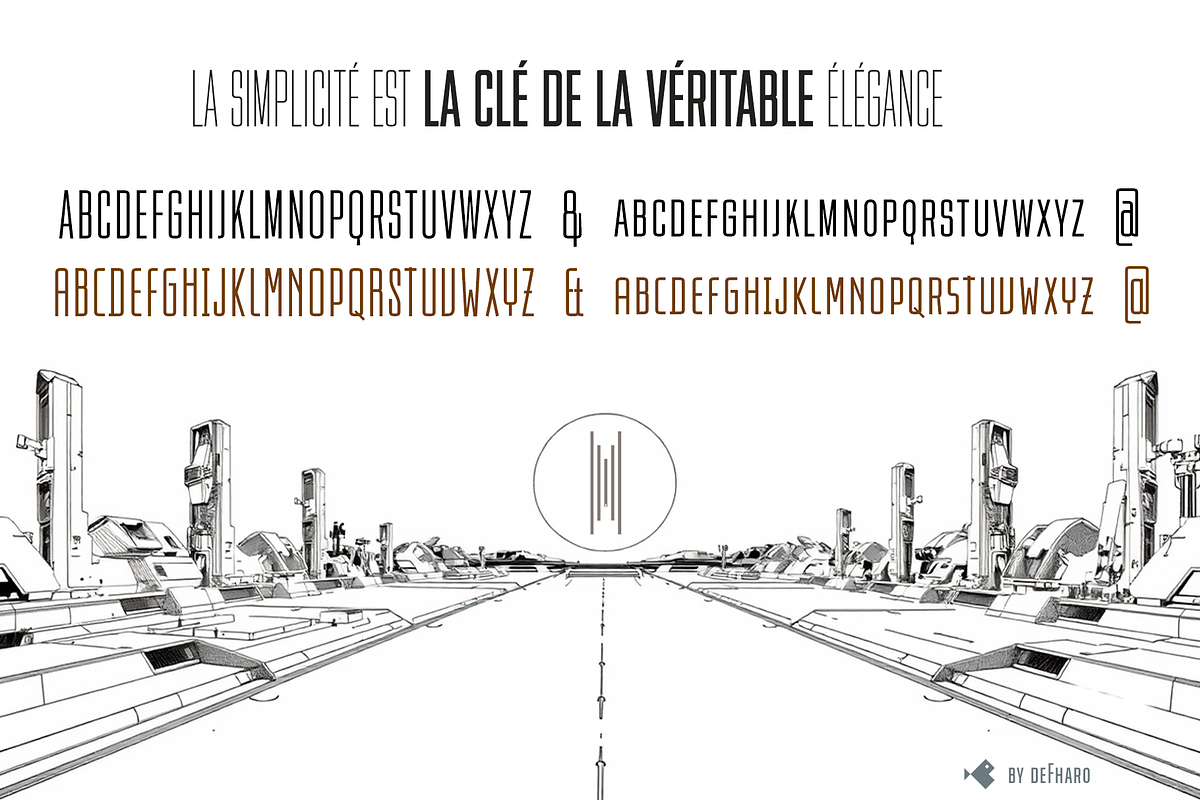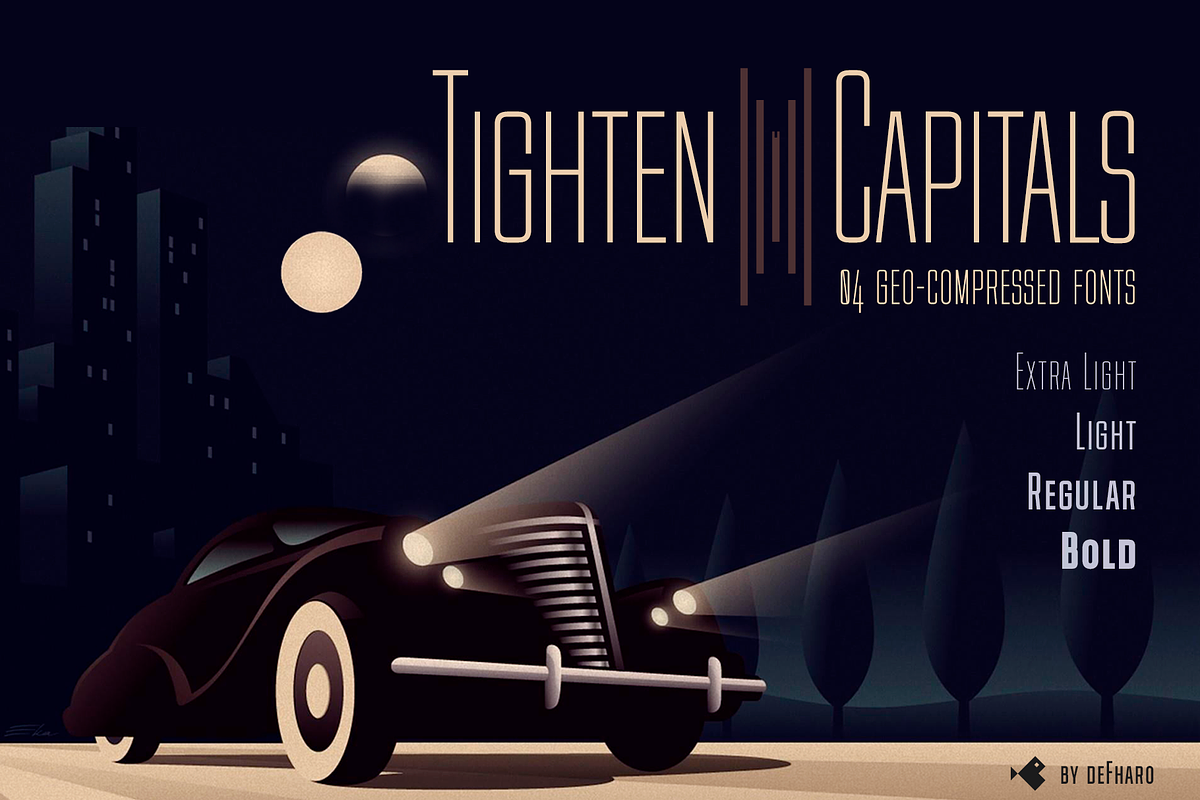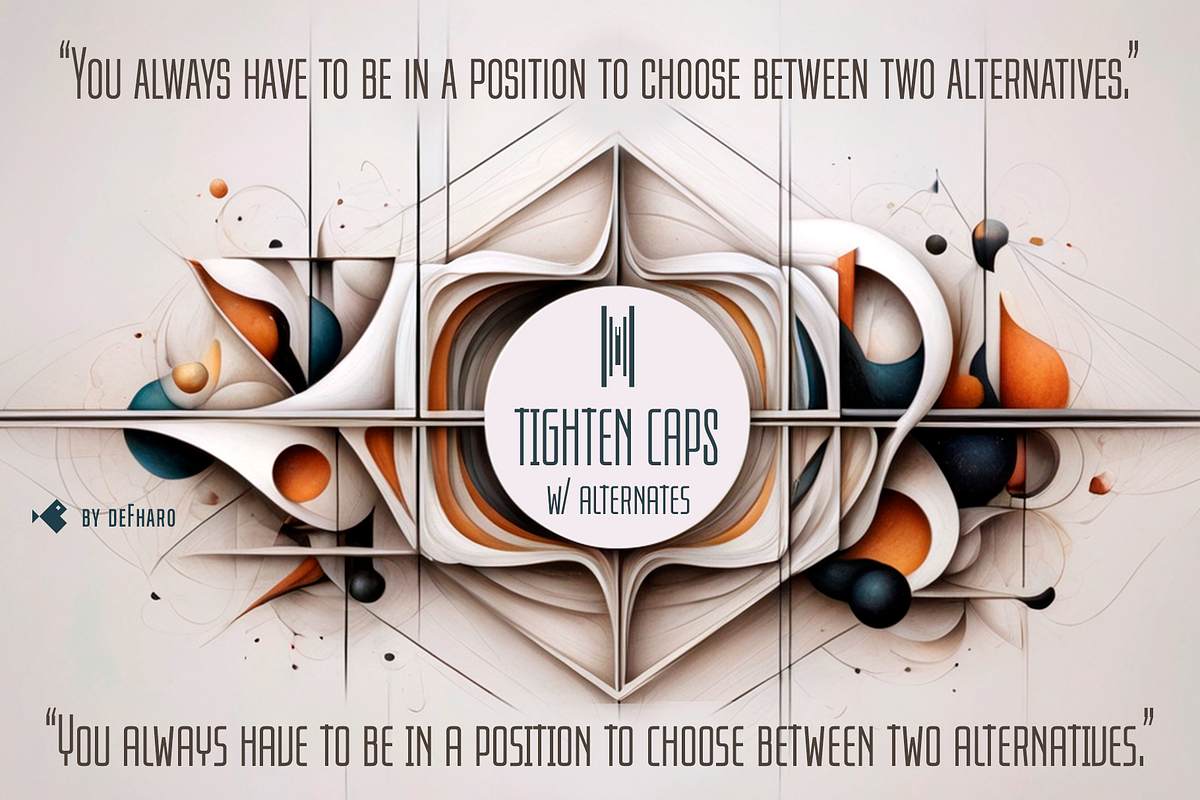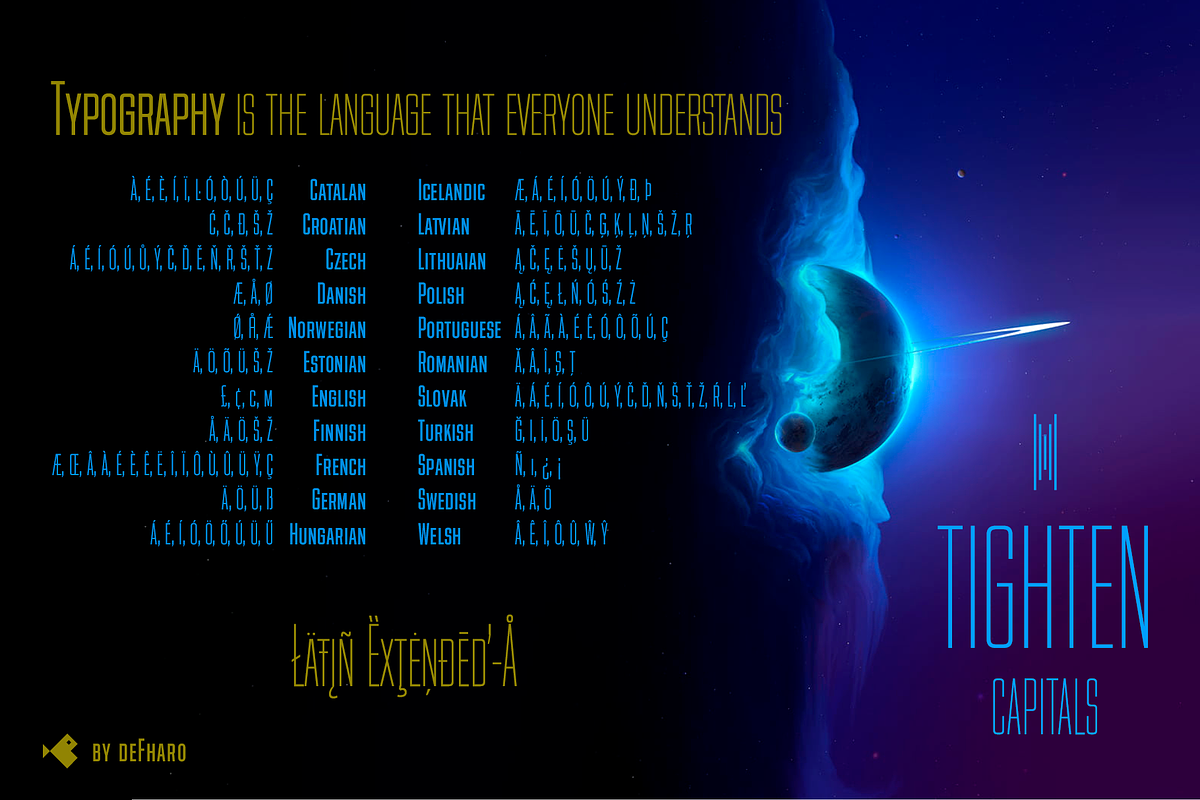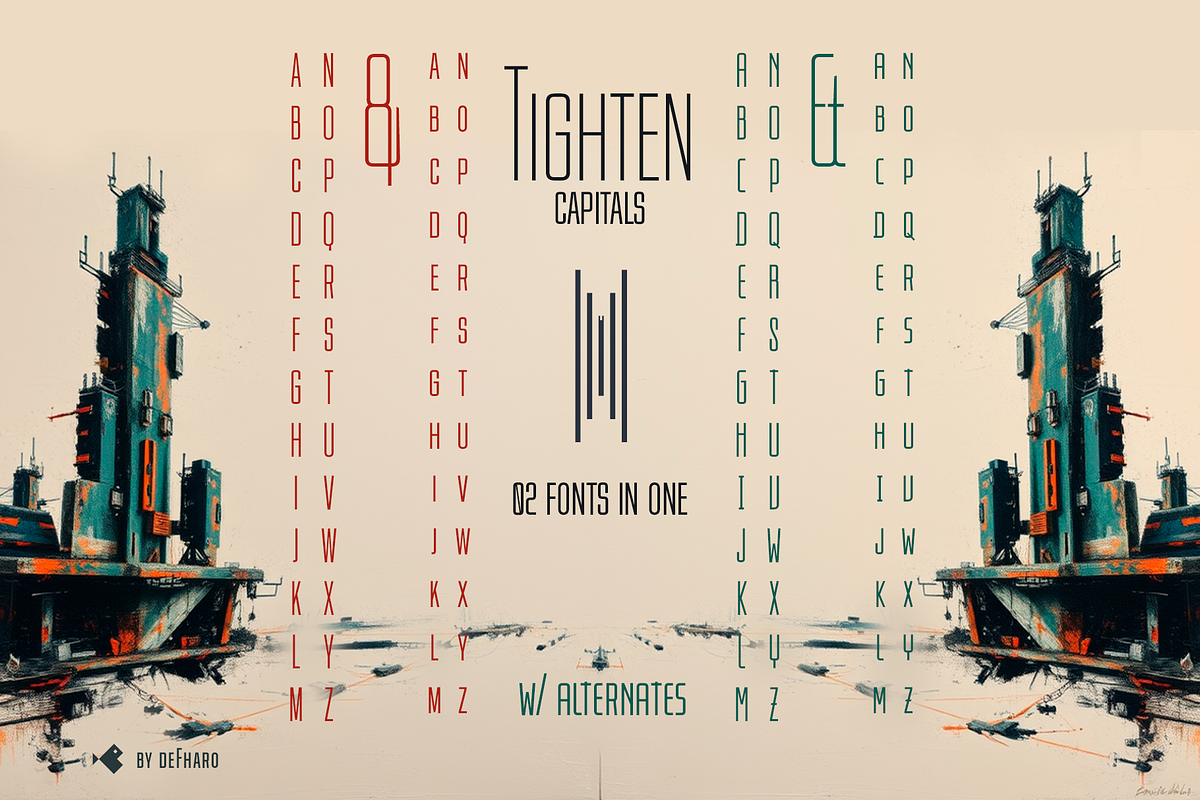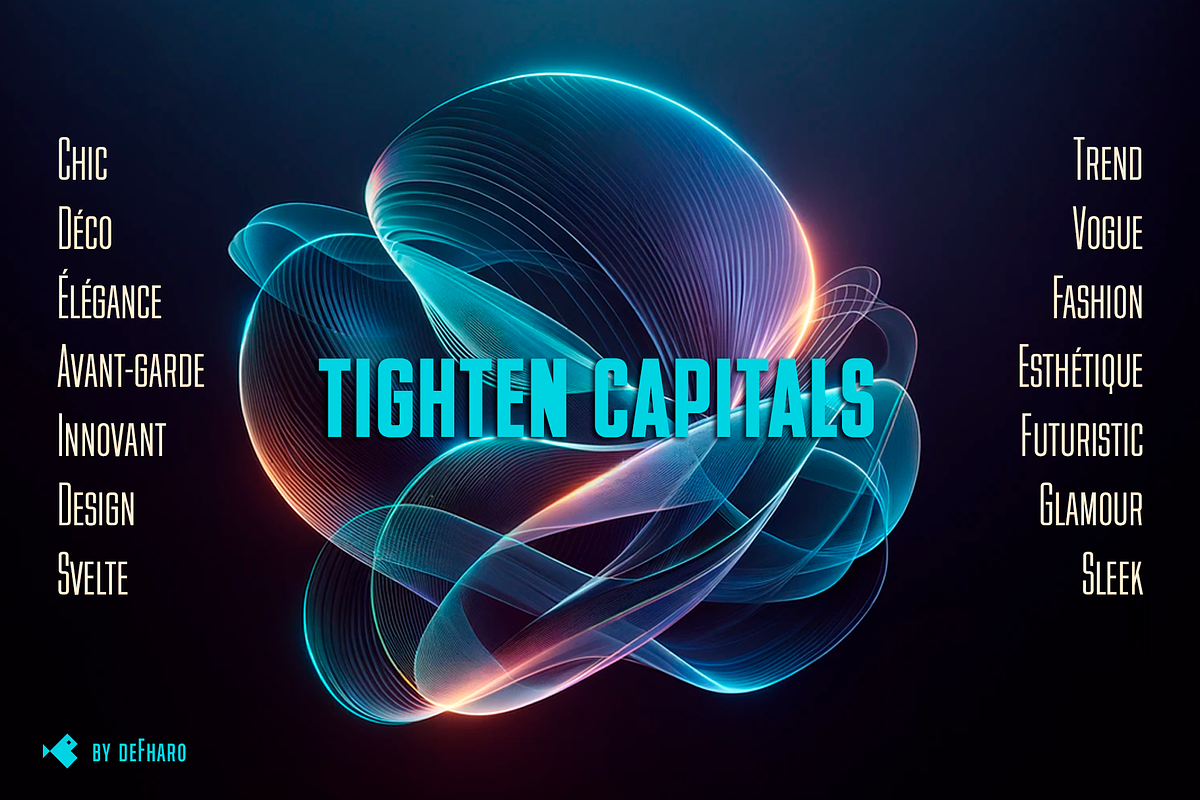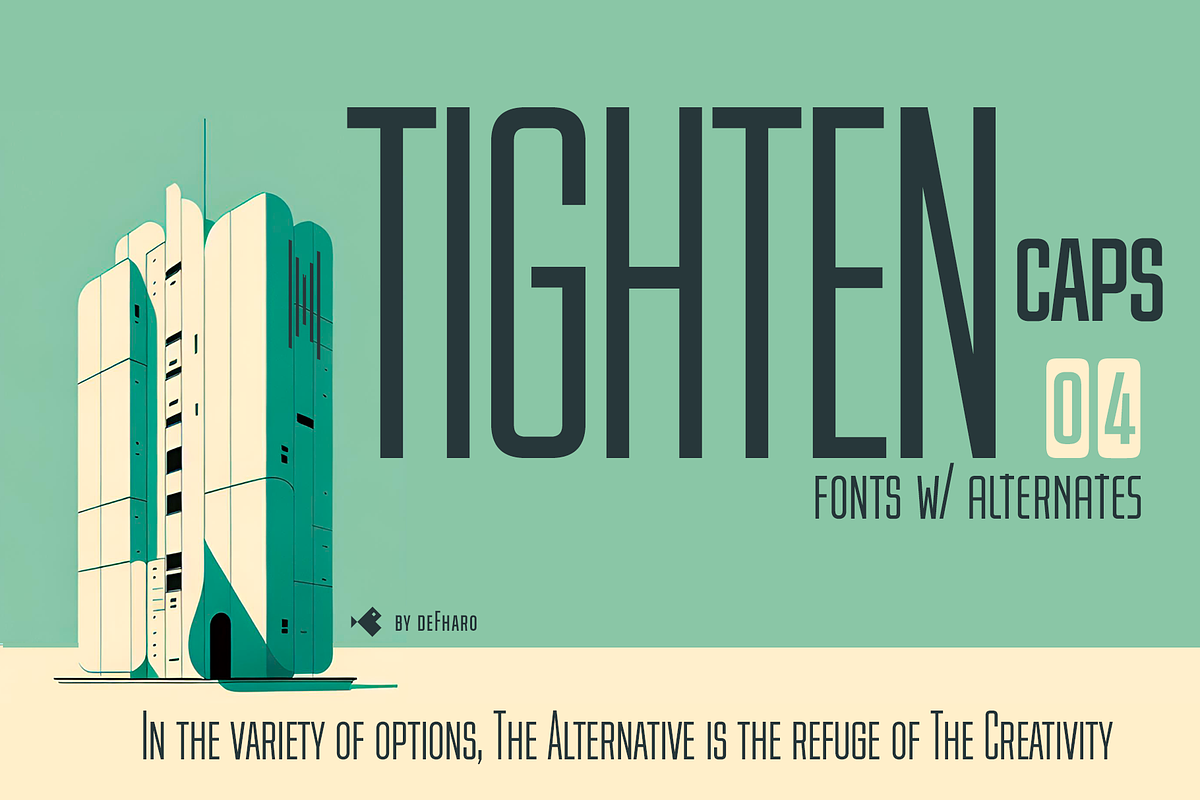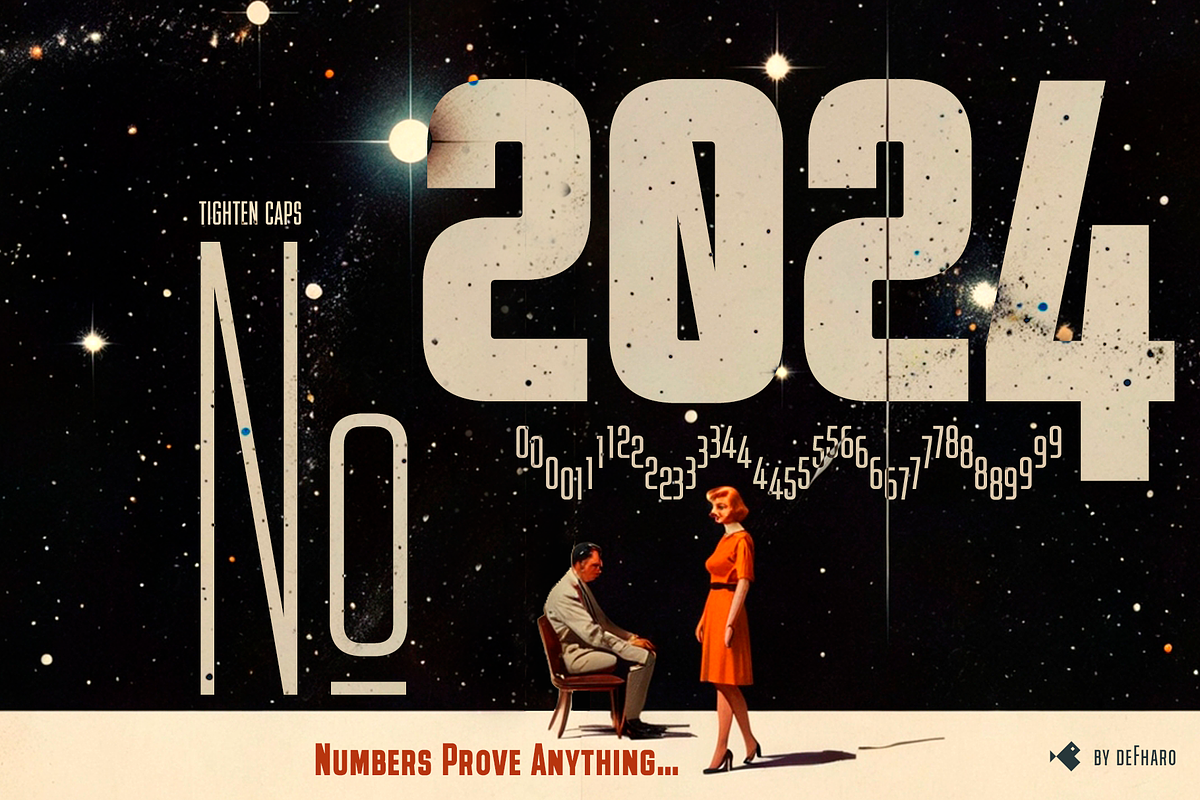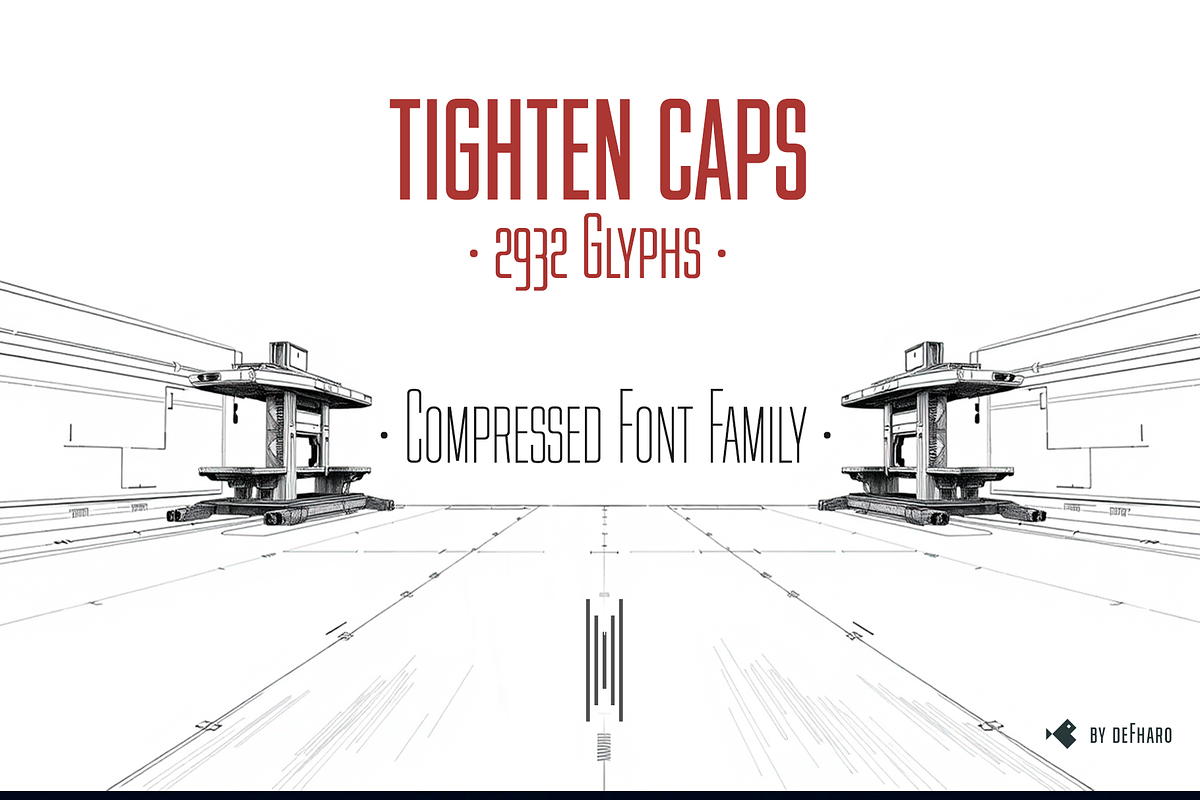
Tighten Capitals -04 Fonts-
Tighten Caps is a compressed-style sans serif typeface family with multiple options (Advanced Open Type Features), making it an essential tool for any designer seeking the balance between elegance, functionality and efficiency; Tighten Capitals not only saves space, but elevates the aesthetic quality of any project where graphic differentiation is essential.
Tighten Caps is available in four weights: Light, Regular, Medium and Bold, each designed to suit a wide range of creative projects, is exceptionally versatile and is recommended for a variety of applications, from editorial typesetting, brochure design, product packaging, to logo creation or signage.
Tighten Capitals offers a new dimension of possibilities with the inclusion of three sets of uppercase letters: Caps, Small Caps and Petite Caps, plus two complete alternative sets, as well as several sets of numbers (numerators, denominators, scientific numbers, ordinals, etc.) accessible from the Open Type functions.
🔻Tighten Caps 04 fonts
Extra Light, Light, Regular & Bold
743 glyphs. Latin Extended-A. 109 alternates.
Tighten Caps fonts includes the symbol of Bitcoin and currency symbols.
OpenType Features: Additional languages, Petite Caps, All Alternates, Alternate Annotation Forms, Bitcoin, Capital Spacing, Contextual Alternates, Denominators, Discretionary Ligatures, Fractions, Historical Forms, Inferiors, Kerning, Localized Forms, Numbers Small Caps, Numerators, Oldstyle Figures, Ordinals, Scientific Inferiors, Slashed Zero, Small Capitals, Standard Ligatures, Stylistic Set, Subscript, Superior letters, Superiors, Superscript, Titling alternates.